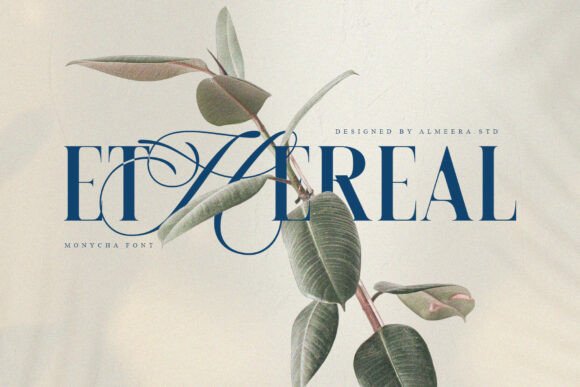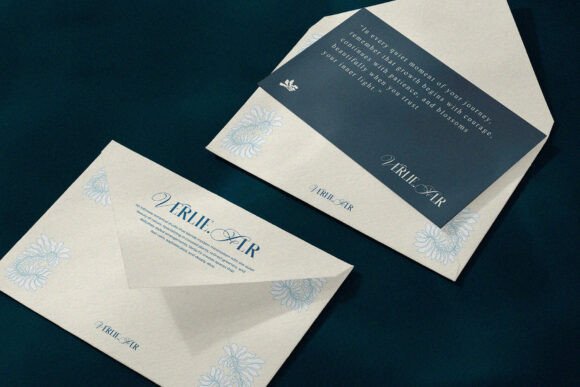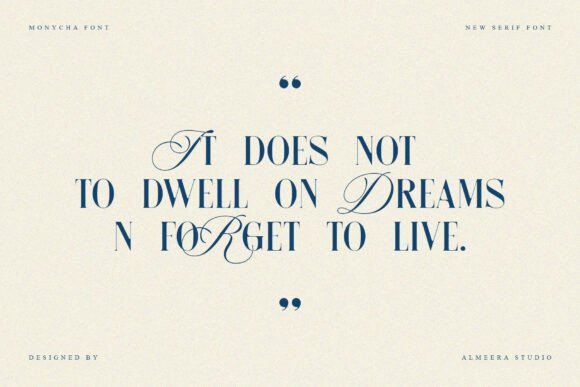
Introduction to Monycha Font
Imagine you’re tasked with designing a luxury fashion magazine spread, and you want to make a statement with your title sequence. You search through design resources, but nothing seems quite right. That’s where the Monycha font comes in – a game-changing typeface that elevates your creative project to the next level.
The Monycha font is a masterclass in elegance, combining the sophistication of a serif with the fluidity of a script. Its stunning, exaggerated swashes and ligatures transform standard text into a piece of custom lettering, perfect for high-end branding and editorial spreads. Whether you’re working on a free download or a high-quality design asset, the Monycha font is a valuable addition to your design toolkit, offering a regal look that’s sure to command attention.
With its high-contrast design and sharp serifs, the Monycha font is a must-have for designers looking to add a touch of drama and class to their projects. And with its versatility, it pairs beautifully with simple sans-serifs, making it the perfect design resource for any creative project.
Key Features of Monycha Font
- High-quality design resource ideal for creative projects requiring a unique touch.
- Perfect for designers seeking a distinctive and modern aesthetic for their creative project.
Honest Review: Monycha Font
I recently stumbled upon the Monycha Font while searching for a high-quality design resource for a creative project. Initially, I was drawn to its unique and elegant design. The free download was a bonus, making it an attractive option for my budget-conscious project.
One of the standout features of the Monycha Font is its versatility. It works well in various contexts, from body text to headings, and can be easily paired with other fonts to create a visually appealing design. I found the font to be particularly effective when used with a transparent background, adding an extra layer of depth to my design.
- What works well: ✨ Elegant and unique design, versatile and easy to use, suitable for various design contexts.
- What doesn’t work well: ⚠️ Limited font sizes and styles available, may require additional customization for more complex projects.
Overall, I was impressed with the Monycha Font’s performance in my creative project. While it has its limitations, its strengths far outweigh its weaknesses. If you’re looking for a high-quality font to add some sophistication to your design, the Monycha Font is definitely worth considering.
Tips for Getting the Most Out of Monycha Font
For the best results, use Monycha Font with a transparent background and a high-quality image. This will help your design stand out and look professional. You can also experiment with different font sizes and styles to find the perfect look for your creative project.
Common Use Cases for Monycha Font
Monycha Font is a versatile font that can be used for a variety of creative projects, including logos, brochures, and social media graphics. It’s also great for creating free download resources, such as templates and design elements.